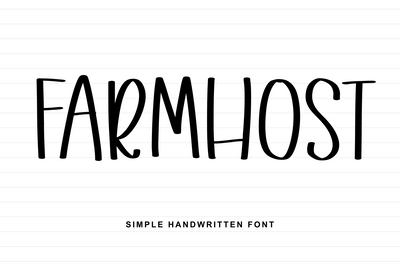
Farmhost
Farmhost is a simple handwritten sans serif inspired by everyday writing and down-to-earth simplicity. Its clean letterforms and steady strokes create a calm, reliable appearance, while subtle handwritten details keep it from feeling mechanical. The result is a font that feels natural, honest, and easy to read.
Farmhost is well suited for branding, packaging, labels, menus, journals, and digital content that calls for a friendly and approachable tone. When you need a handwritten sans serif that feels grounded and straightforward, Farmhost delivers a warm, practical character that fits effortlessly into many design styles.